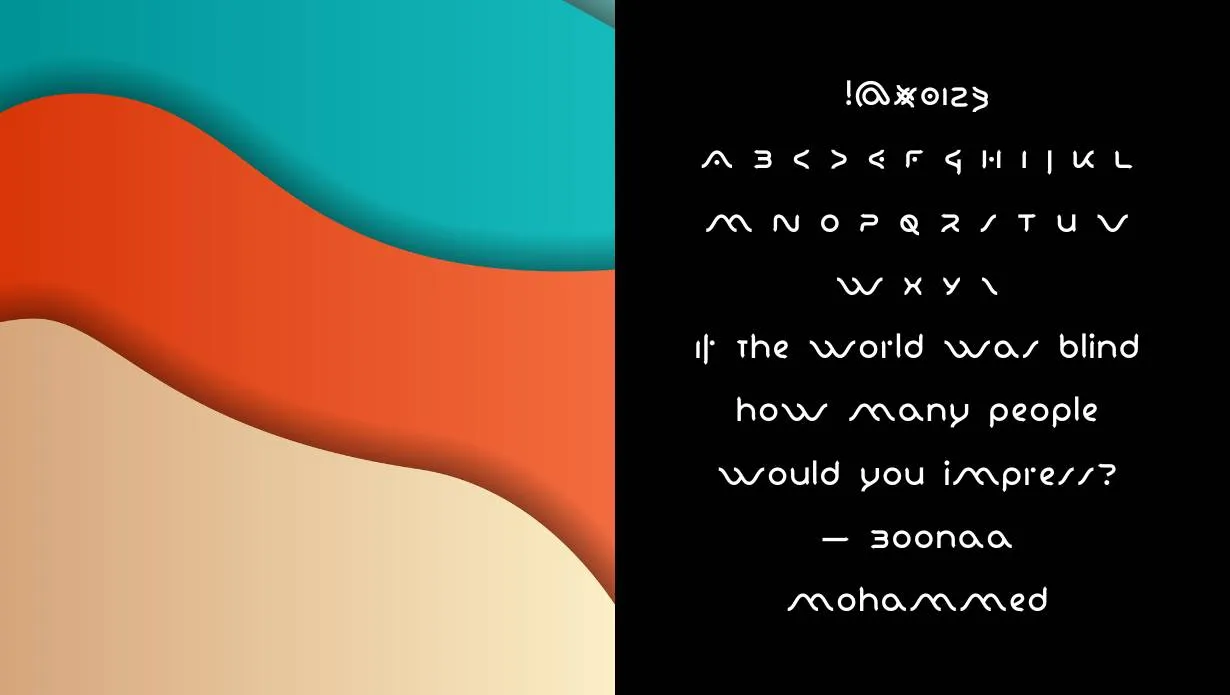
Vaio Con Dios Font is a unique Fancy font with a versatile, geometric design. It was created by graphic designer Fernando Mello in 2019. The Font family includes 6 different styles: Regular, Italic, Bold, Bold Italic, Black, and Black Italic.
This font glyph has a unique feature called “stylistic alternates”. For example, you can change the “a” to look like an “e”, or the “g” to look like a “y”.
This allows you to change the look of certain letters by selecting a different character from the same glyph set.
| Name | Vaio Con Dios Font |
| Designer | Fernando Mello |